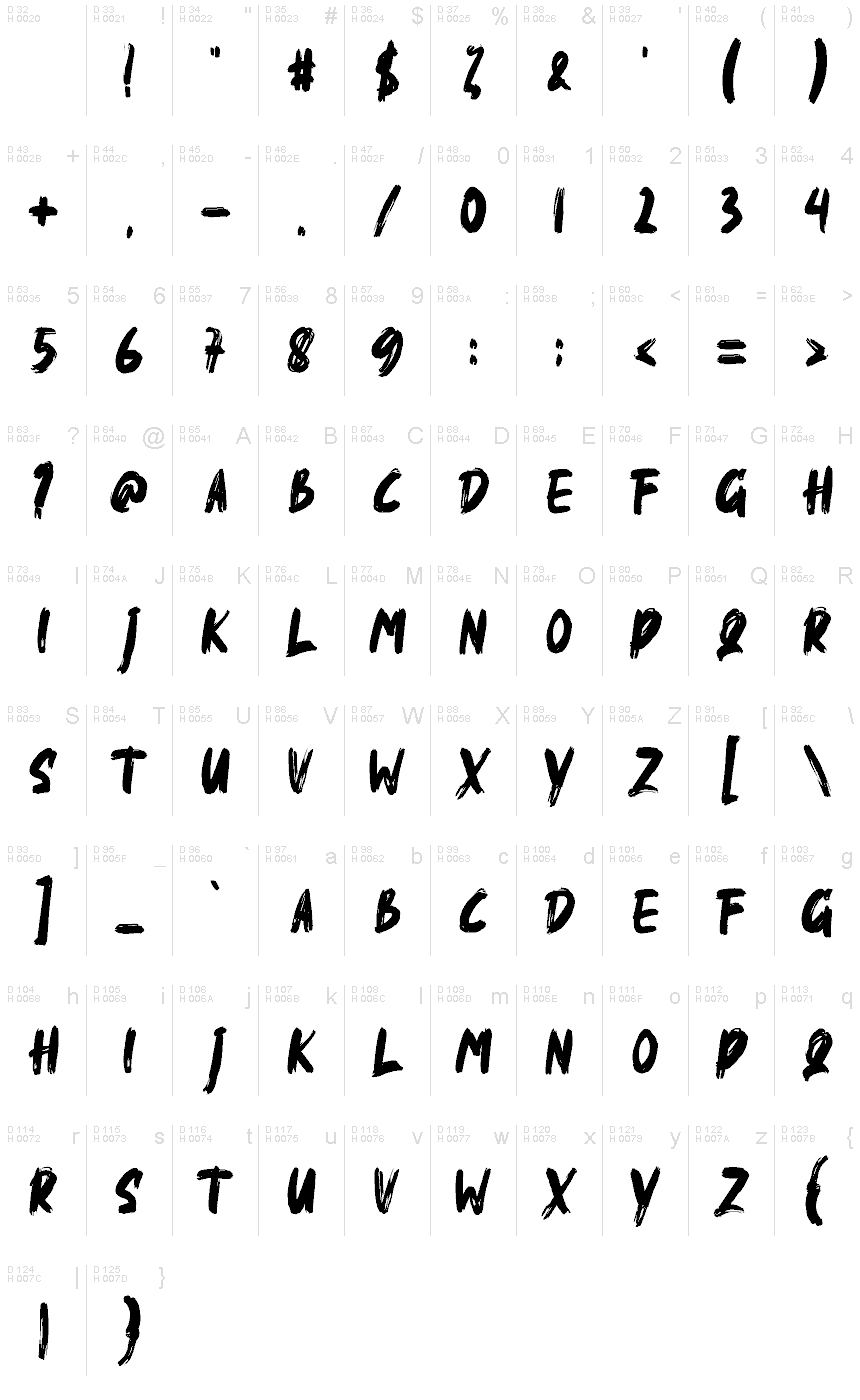
Prahara
Prahara font by Skiiller Studio is a hand-drawn brush typeface that combines modern influences with an expressive style. The small thick font has an artistic flair, grunge-like texture, and an energetic movement that captures the reader’s attention from the first look.